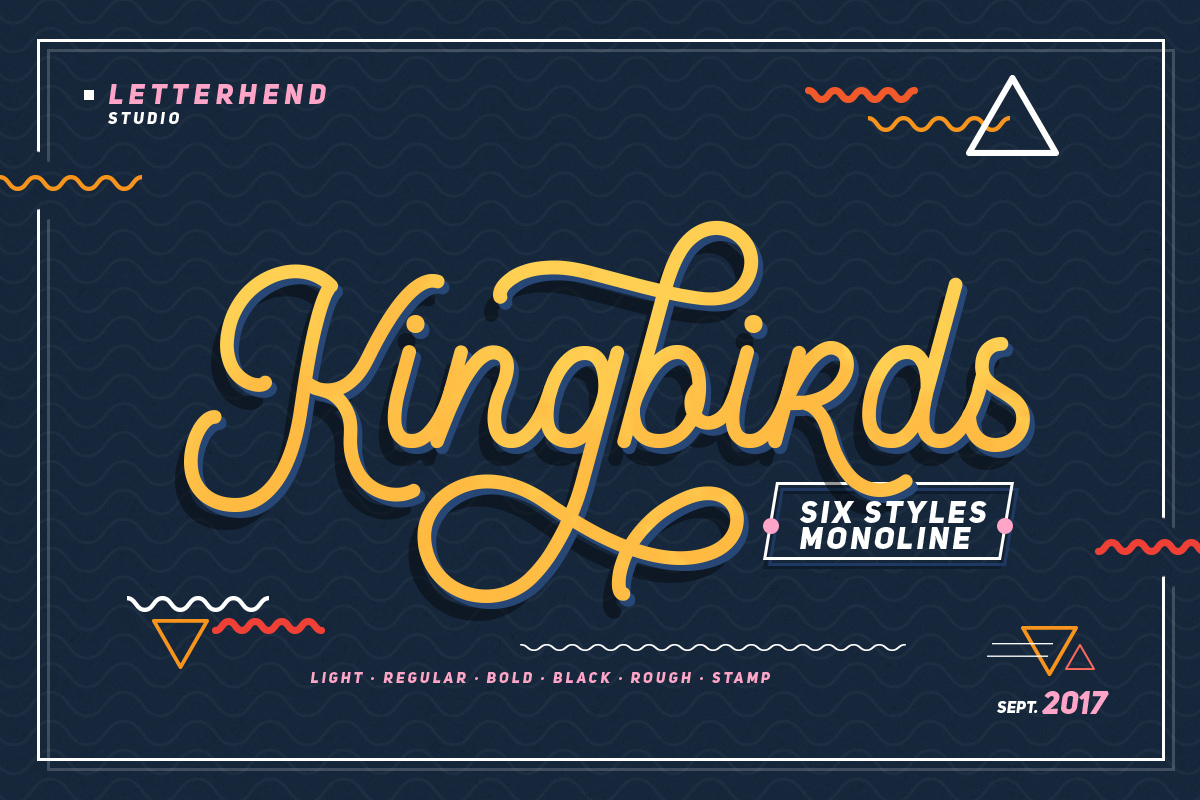
Kingbirds Font
The Kingbirds Font is a versatile and distinctive typeface designed to give your projects a strong sense of character and style. With its clean lines and confident letterforms, this font is perfect for a wide range of applications, including bold logos, engaging social media graphics, and eye-catching t-shirt designs. It’s an excellent choice for branding that needs a modern yet authentic feel, and it works wonderfully for headlines, posters, and packaging that require a touch of personality. The Kingbirds Font has a timeless quality that allows it to feel both contemporary and subtly retro, making it a valuable asset for any creative professional.
What makes the Kingbirds Font so exciting is its unique ability to blend a bold presence with excellent readability. The carefully crafted details of each character give the font a subtle artistic flair, ensuring your text stands out without being distracting. This is a font that makes a statement, conveying a sense of confidence and authenticity that can instantly elevate a brand’s identity. Its balanced design ensures it looks great in both large and small sizes, making it a reliable choice for everything from a powerful headline to a simple footer. The Kingbirds Font is more than just a set of letters; it’s a tool for creating memorable and impactful visual communication.
The Kingbirds Font family often includes a comprehensive set of characters, offering a full range of uppercase and lowercase letters, numbers, and punctuation. For designers, its most valuable features are its multiple weights and styles. You'll typically find options like Light, Regular, and Bold, each with a matching italic version. This extensive family provides the flexibility to create a consistent visual hierarchy across all your projects, from a brand logo to the accompanying marketing materials. This level of versatility ensures you have all the tools you need to build a complete and stylish design.